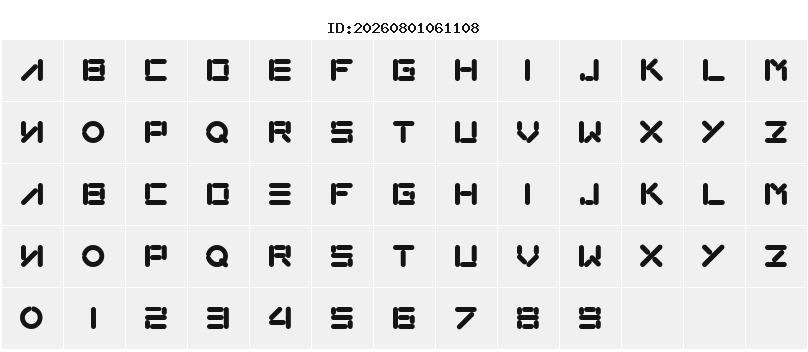
• Font Name: LOXO
About LOXO.ttf
LOXO.ttf is a modern, elegant sans-serif font designed for ultimate readability and visual harmony. Perfect for branding, headlines, web design, and print materials.